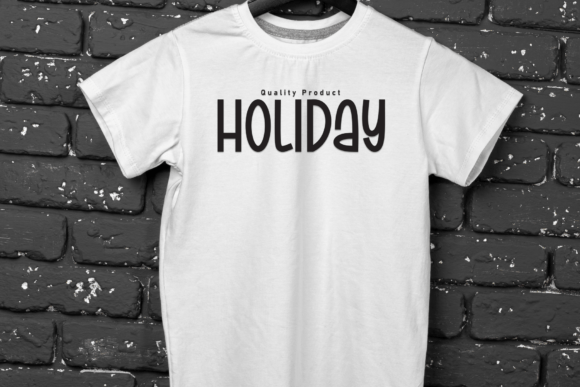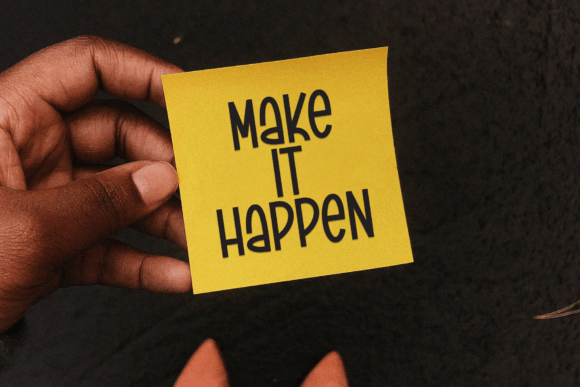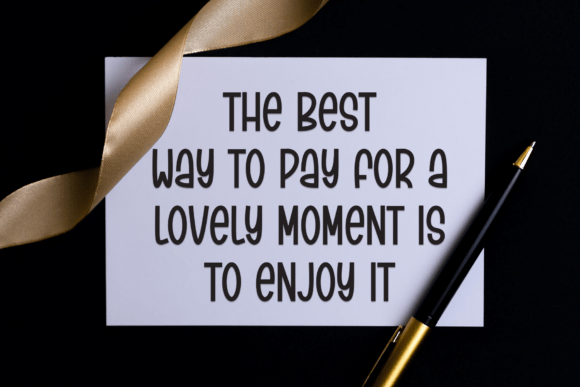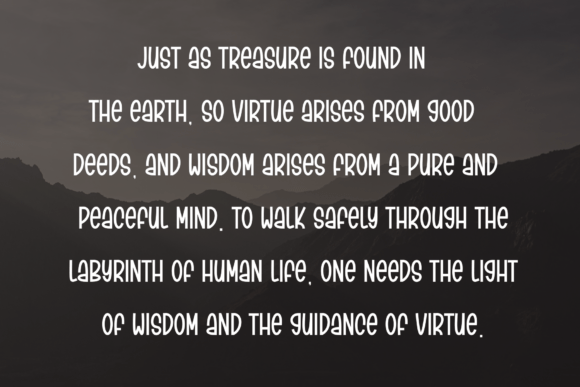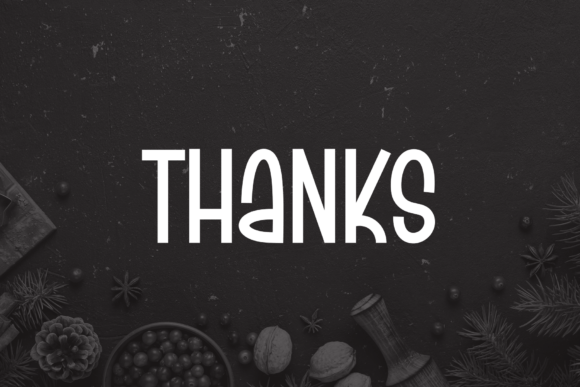
Introducing Christmas Charcoal: The Ultimate Font for Festive Designs
Are you looking for a font that can add a touch of festive cheer to your holiday designs? Look no further than Christmas Charcoal, a playful and bold handmade font that’s perfect for creating merry and bright Christmas cards, holiday posters, gift tags, and seasonal branding.
A Festive yet Modern Twist
Christmas Charcoal brings a fresh and modern twist to traditional holiday typography. Its tall letterforms, rounded edges, and charming curves give it a unique and eye-catching appearance that’s sure to stand out. Whether you’re aiming for a cozy and traditional or a contemporary and sleek look, this font is versatile enough to fit your design needs.
Handmade with Love and Care
One of the standout features of Christmas Charcoal is its handmade character. Each letterform has been carefully crafted to give it a warm and personal touch that’s perfect for holiday designs. The font’s clean design ensures easy readability across all formats, making it perfect for use on a wide range of materials, from Christmas cards and gift tags to holiday posters and seasonal branding.
Christmas Charcoal is a dream font for designers and crafters alike. Its playful and bold design makes it perfect for use on a wide range of holiday projects, from Christmas cards and gift tags to holiday posters and seasonal branding. Whether you’re a professional designer or a crafter looking for a unique font to add to your projects, Christmas Charcoal is a great choice.
PUA-Encoded for Easy Access
Christmas Charcoal is PUA-encoded, which means that all glyphs, swashes, and alternate characters are easily accessible. This makes it easy to customize your designs and add a personal touch to your holiday projects. With PUA encoding, you can effortlessly access all the font’s features and create unique and eye-catching designs.
Key Features of Christmas Charcoal
• Playful and bold handmade font
• Festive yet modern twist on traditional holiday typography
• Tall letterforms, rounded edges, and charming curves
• Perfect for Christmas cards, holiday posters, gift tags, and seasonal branding
• Handmade character adds warmth and personality
• Clean design ensures easy readability across all formats
• PUA-encoded for easy access to glyphs, swashes, and alternate characters
Tips for Using Christmas Charcoal
Here are a few tips for using Christmas Charcoal in your holiday designs:
• Use it as a headline font to add a bold and playful touch to your designs
• Pair it with a simpler font for body text to create a clear and easy-to-read design
• Experiment with different colors and textures to add depth and interest to your designs
• Use the font’s swashes and alternate characters to add a personal touch to your designs
Christmas Charcoal is a unique and versatile font that’s perfect for adding a touch of festive cheer to your holiday designs. Its playful and bold design, handmade character, and clean readability make it a great choice for designers and crafters alike. With its PUA encoding and easy access to glyphs, swashes, and alternate characters, Christmas Charcoal is a font that’s sure to brighten up your winter projects.